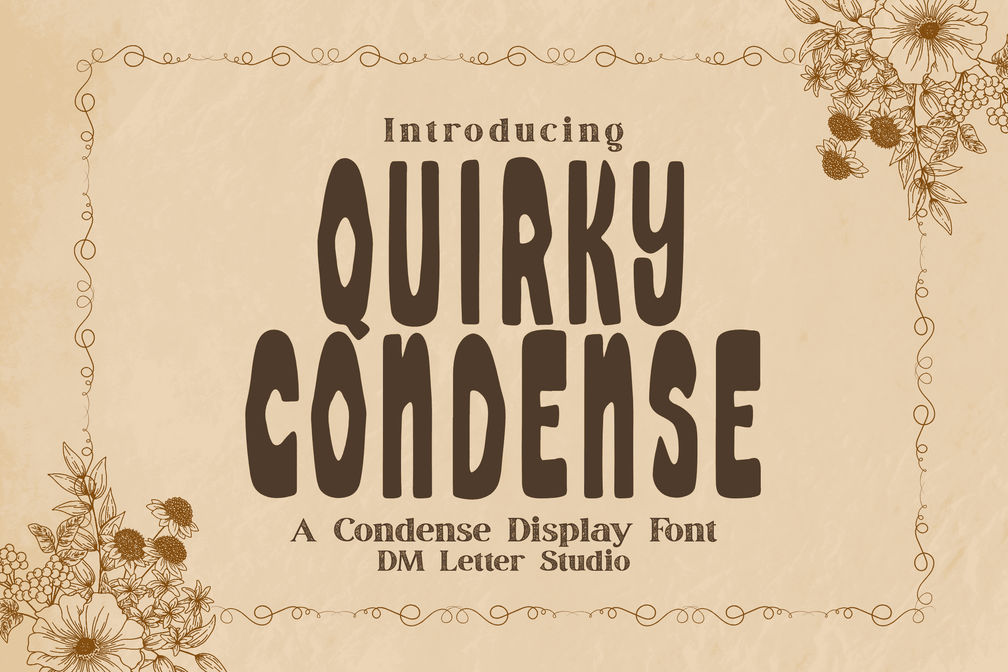
Quirky Condense
Quirky Condense – A Fun & Slim Display Font
Quirky Condense is a charmingly playful condensed font that brings a fresh and lighthearted vibe to any project. With its tall, narrow letterforms and quirky styling, this font is ideal for designs that need both character and space efficiency. Whether you’re working on posters, branding, t-shirts, or quirky quote designs, Quirky Condense adds a cheerful, modern twist.
• Playful Condensed Design: Slim and tall letterforms with whimsical character.
• Perfect for Fun & Creative Projects: Great for posters, logos, packaging, and playful headlines.
• Space-Saving Display Font: Ideal for designs where vertical space is preferred.